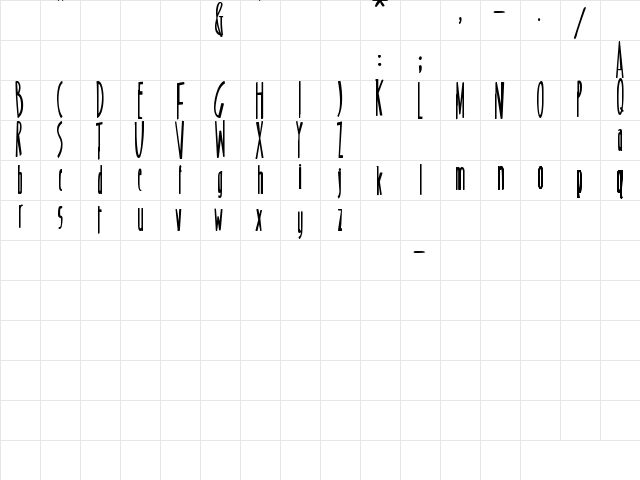
Sweet Blur Regular Font Preview
Sweet Blur Regular
Design Context for Sweet Blur Typeface
Sweet Blur is a composed and adaptable typeface that performs quietly and consistently across a wide range of design contexts.
Pro Tip: Pair Sweet Blur with a font of contrasting weight or personality to build a more expressive typographic hierarchy.